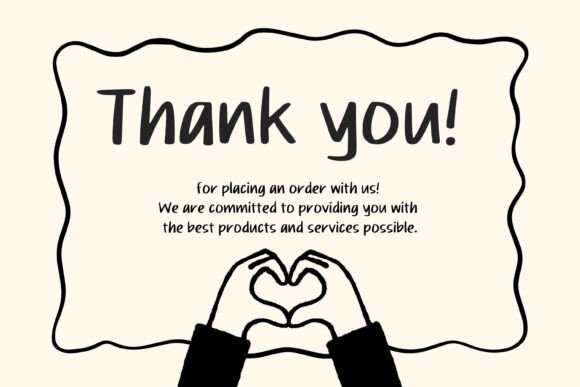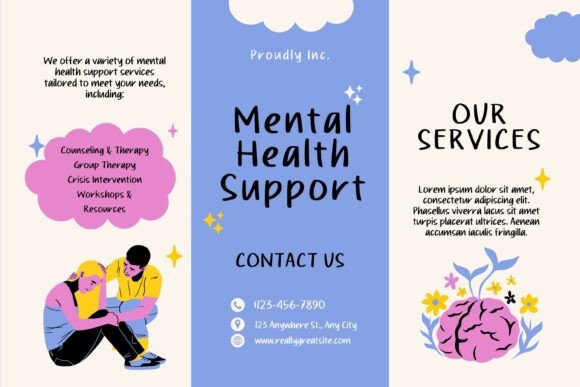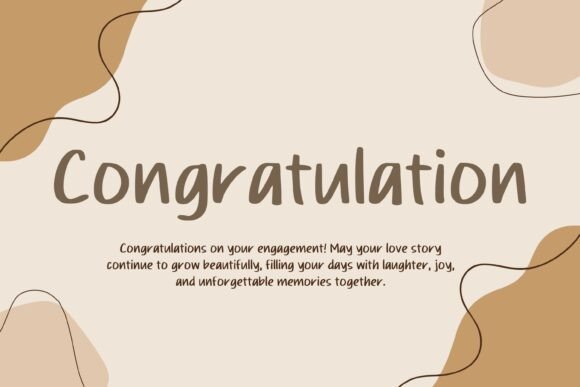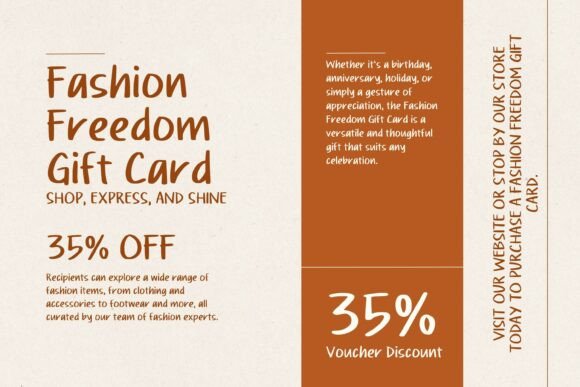
Introduction to Serahkuai Font
As you sit at your desk, surrounded by scraps of paper, paint, and sketchbooks, the creative spark ignites. You’re working on a new project, and the words just won’t flow – until you pick up your favorite pen and start writing. The flow of ink onto paper is like a symphony, and your handwriting becomes the melody. This moment is what the Serahkuai Font captures so beautifully – the essence of handwritten elegance.
For designers, finding the perfect font can be a daunting task. That’s why we’re excited to share with you the Serahkuai Font, a high-quality, free download that’s perfect for any creative project. Its transparent background and delicate lines make it a valuable design resource for anyone looking to add a touch of sophistication to their work.
With its unique charm and refined style, the Serahkuai Font is sure to breathe life into your text and create a captivating visual harmony for your audience.
Key Features of Serahkuai Font
- Perfect for use in logos, branding, and other design projects where a unique and creative font is required.
- Unique characteristic: features a distinctive and elegant design, making it an excellent choice for designers seeking a high-quality design resource.
Honest Review: Serahkuai Font
As a designer, I’m always on the lookout for high-quality design resources that can help elevate my creative projects. The Serahkuai Font has caught my attention, and I’m excited to share my honest review.
- ✨ Beautiful and unique design style that sets it apart from other fonts
- ✨ Suitable for various creative projects, from digital art to graphic design
- ⚠️ Limited character set, which may not be ideal for extensive text-based projects
Overall, I’m impressed with the Serahkuai Font’s high quality and unique design style. While it may not be perfect, it’s a valuable resource for designers looking to add a touch of creativity to their projects. With a transparent background and free download option, it’s definitely worth considering for your next design project.
To get the most out of Serahkuai Font, use it in combination with other design elements to create visually appealing graphics and designs. Experiment with different font sizes, colors, and styles to create a unique and creative project.
Some common use cases for Serahkuai Font include creating social media graphics, blog posts, and presentations. This font is also ideal for creating logos, branding materials, and other design elements for your creative project.